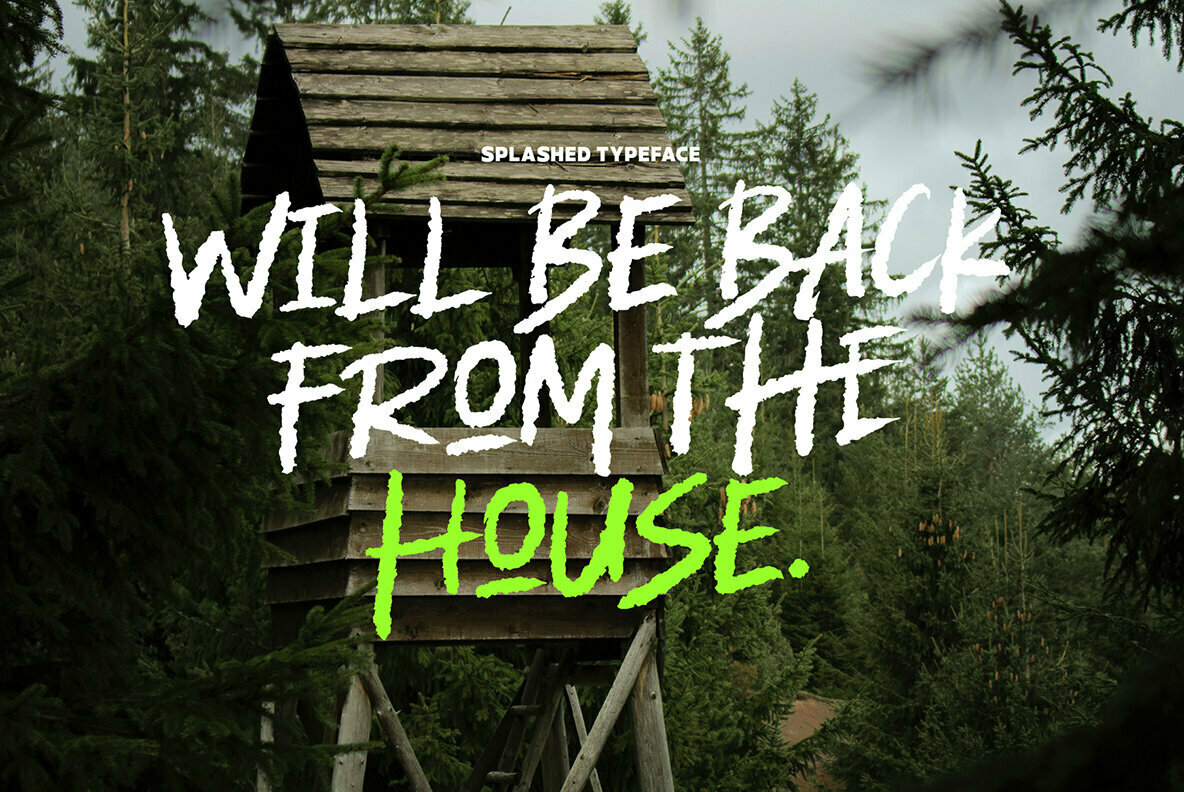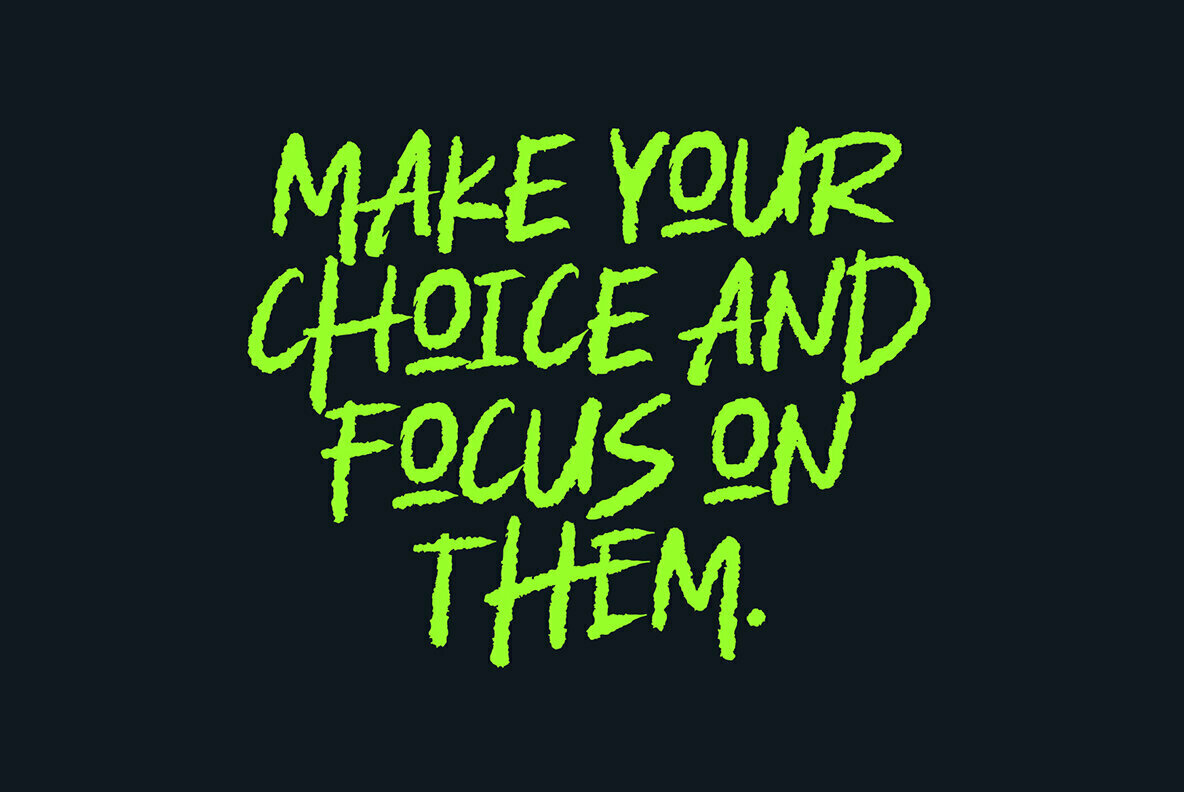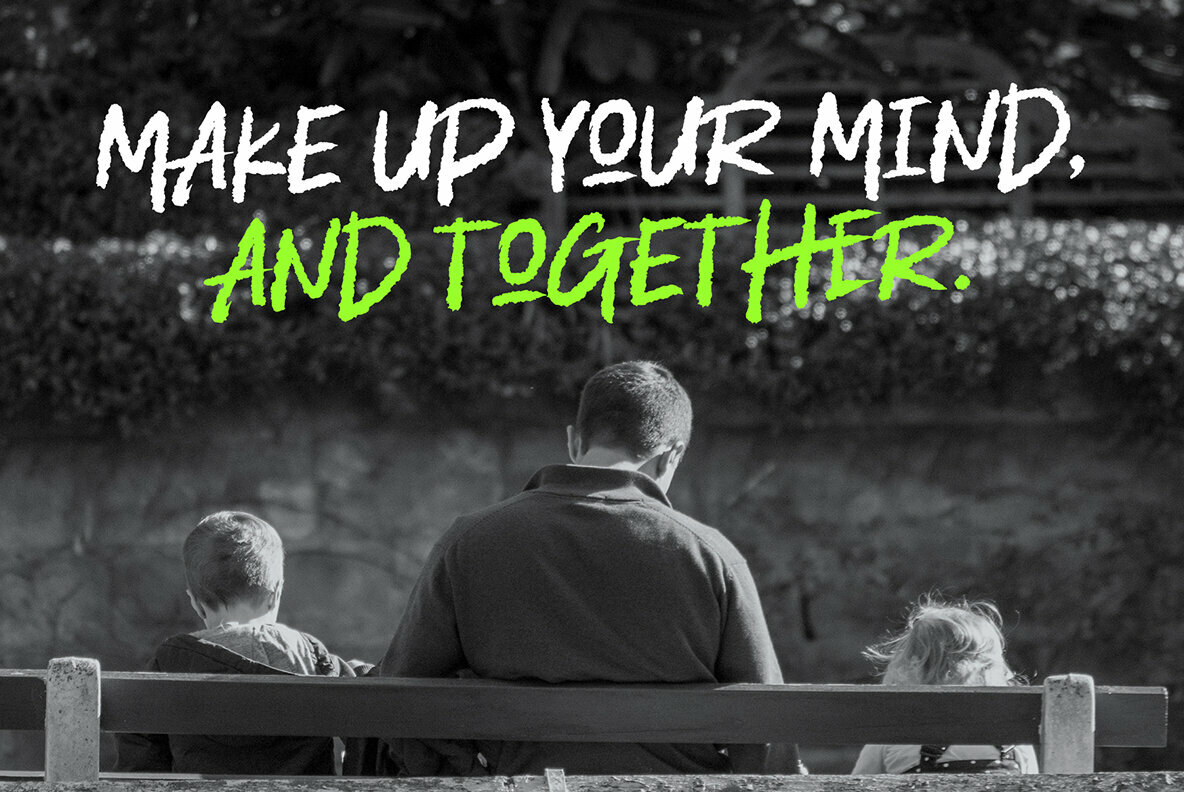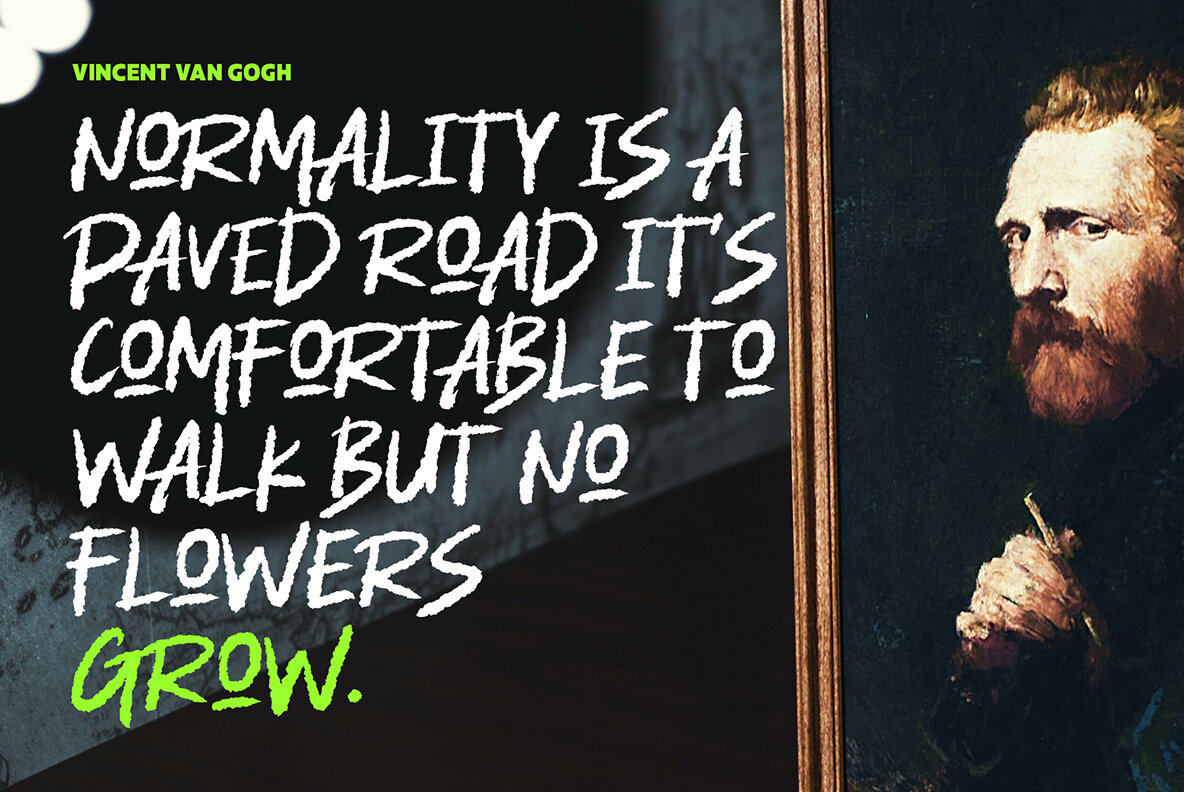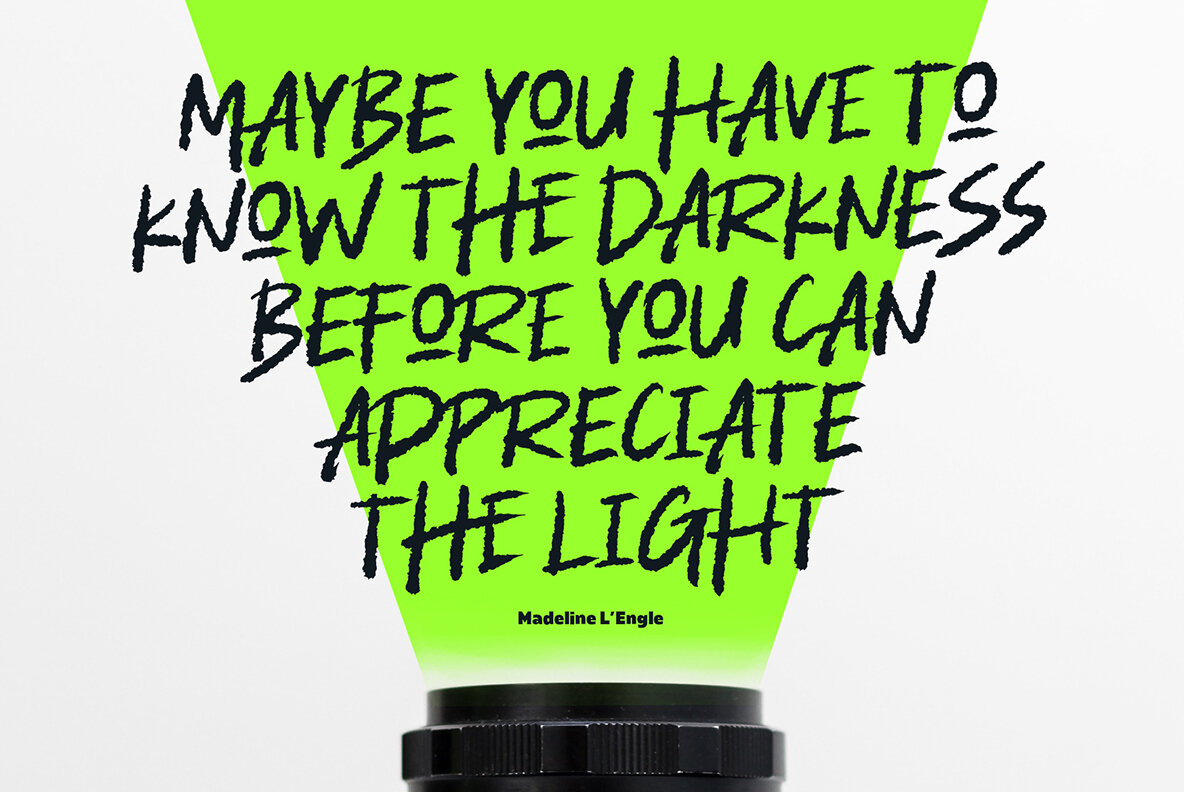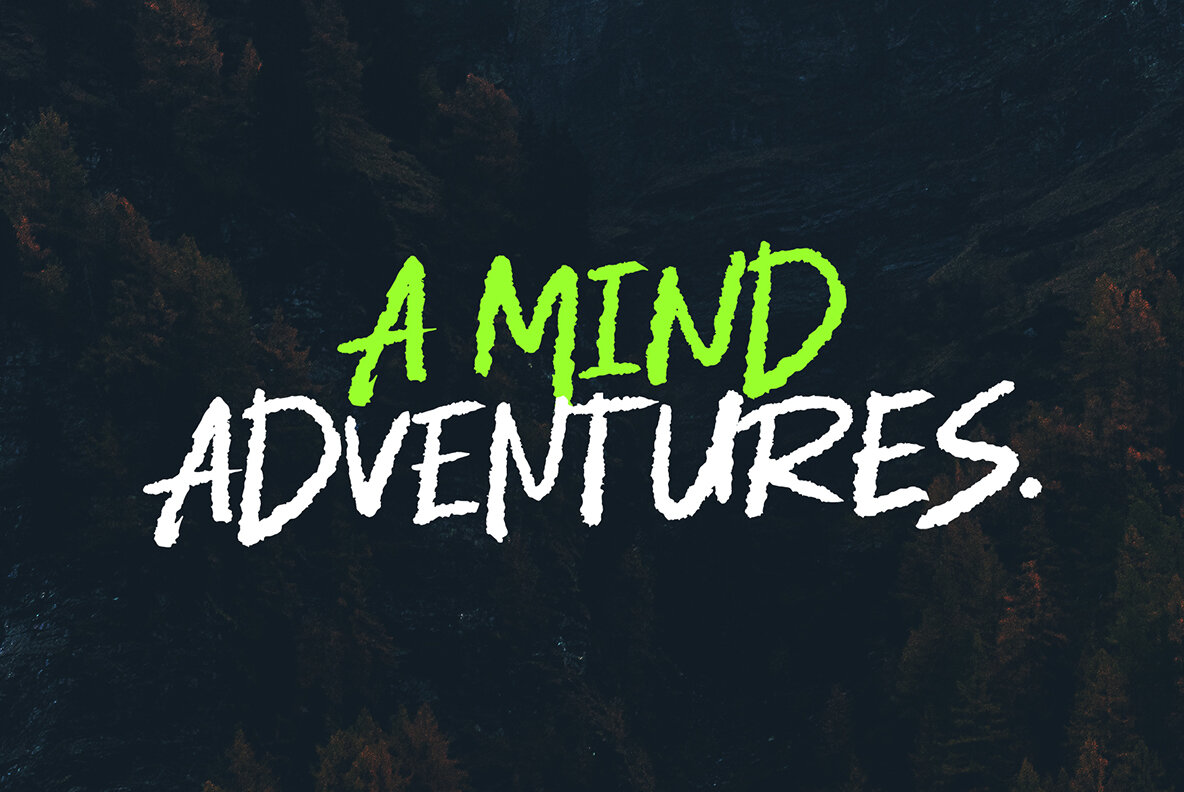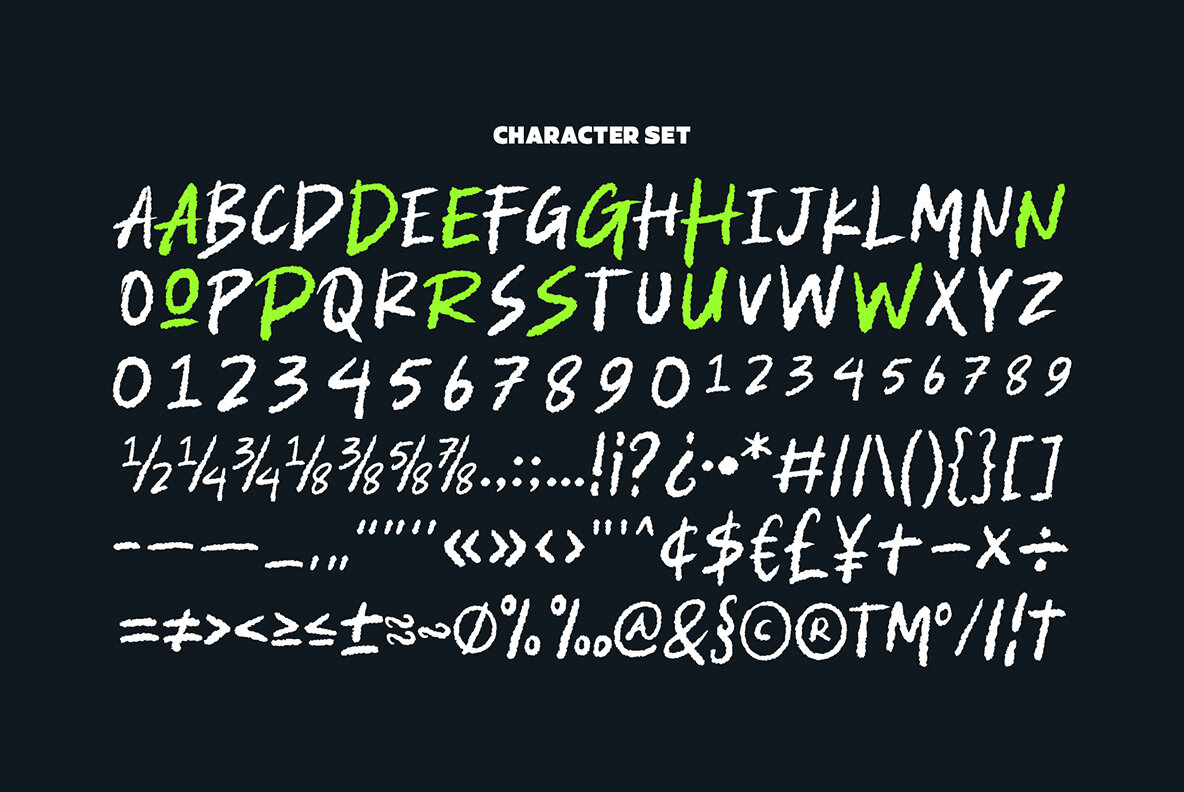
Splashed Font
Splashed Regular
For projects that demand a touch of personality and movement, Splashed offers a handwritten brush style that is both engaging and versatile. With over 400 glyphs, this font is crafted to convey both energy and elegance, making it ideal for headlines, branding, and advertising applications.Splashed: Dynamic Handwritten Brush Font